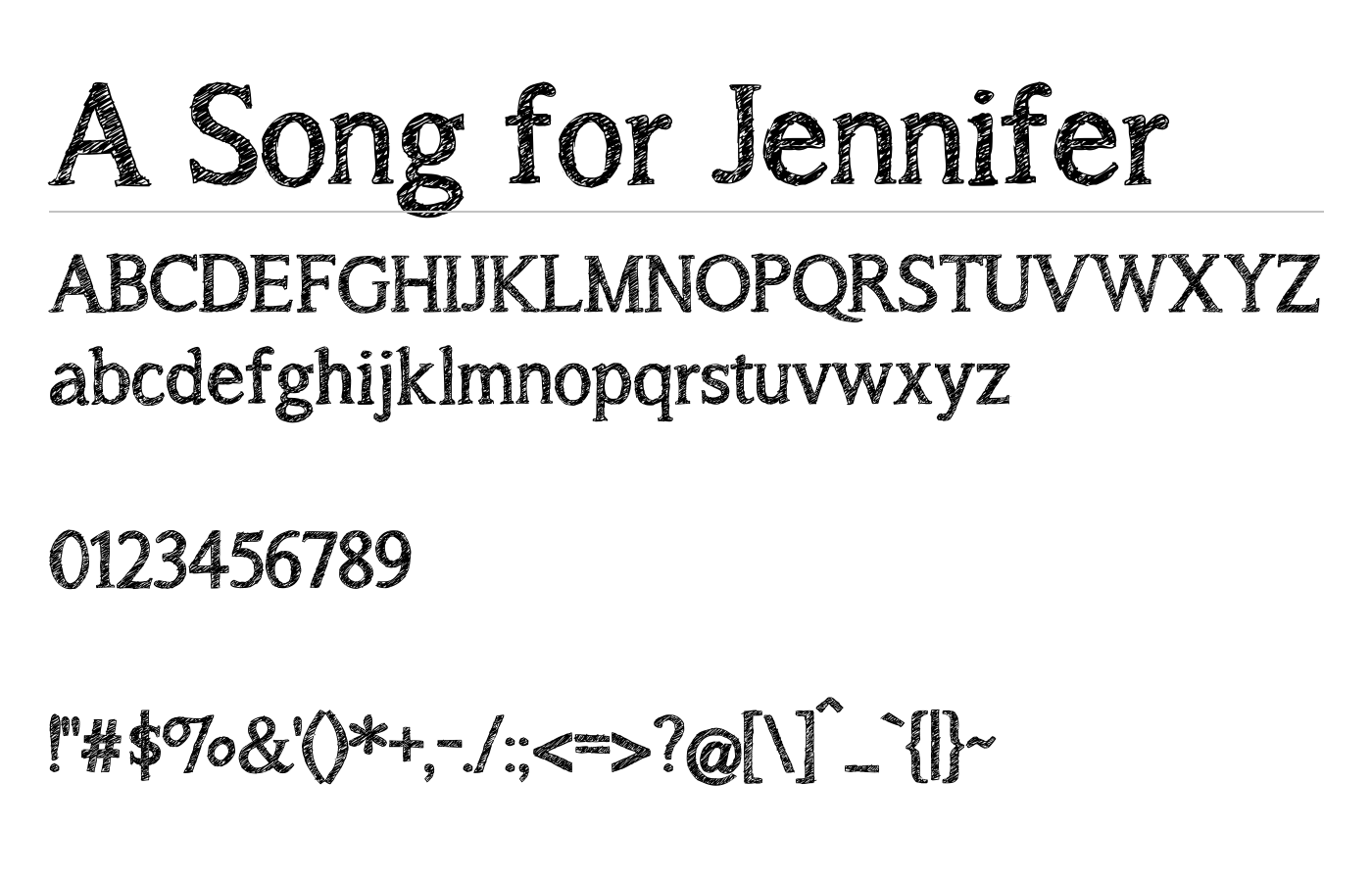
A Song for Jennifer is a charming serif font with a hand-sketched, textured look that gives it a warm and artistic feel. Its medium weight and slightly condensed proportions, combined with classic serif shapes and distinctive crosshatching, make it ideal for designs that want to convey creativity and personality while maintaining readability. This font works beautifully for greeting cards, posters, and branding projects that seek a handmade, inviting touch.
A Song for Jennifer Font
About A Song for Jennifer Font
| Font family | A Song for Jennifer Font |
| Designer | Brittney Murphy |